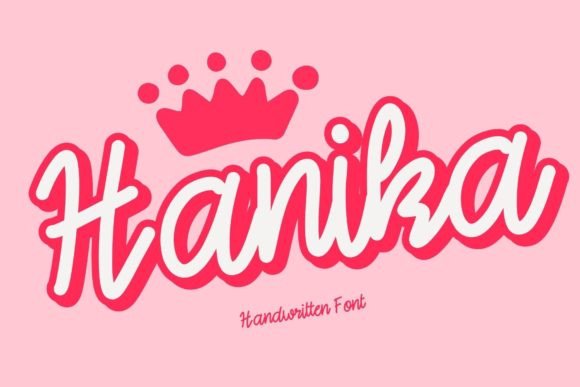
Experience the allure of Hanika Script, the delightful handwritten font that radiates playfulness and authenticity. Created with utmost care by Brown Cupple Fonts, Hanika captures the essence of charm and creativity, making it the ideal companion for your cherished projects.
Immerse yourself in the world of typography with Hanika, the captivating script font that evokes a sense of whimsy and genuineness. From blog posts and logos to branding, ads, invitations, and greeting cards, Hanika adds a touch of artistry and elegance to every creation. It's perfect for planners, photo albums, decorations, and any project that calls for a personal touch.
With Hanika, you'll embark on a creative journey where imagination knows no bounds. Let your designs blossom with the beauty of Hanika, and revel in the joy of self-expression. Discover the endless possibilities that await you with this enchanting font, and transform your designs into masterpieces of creativity.